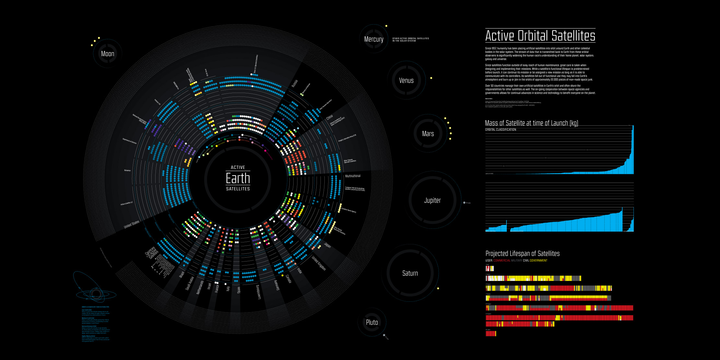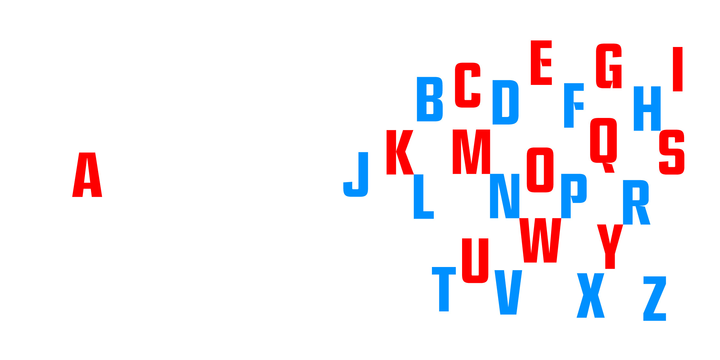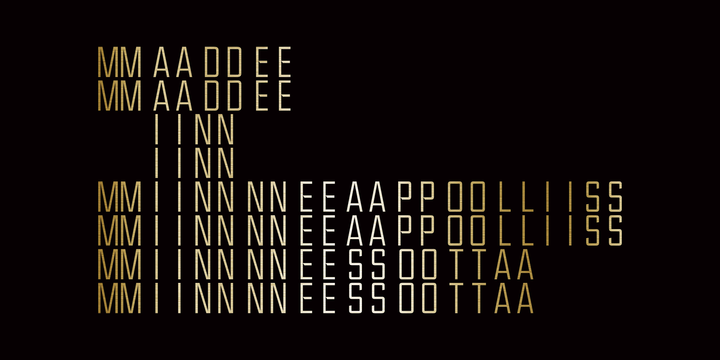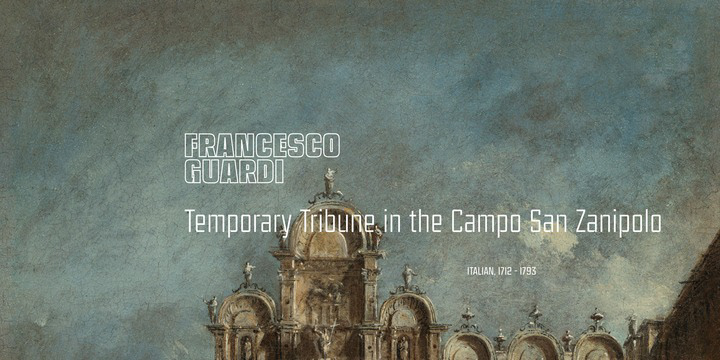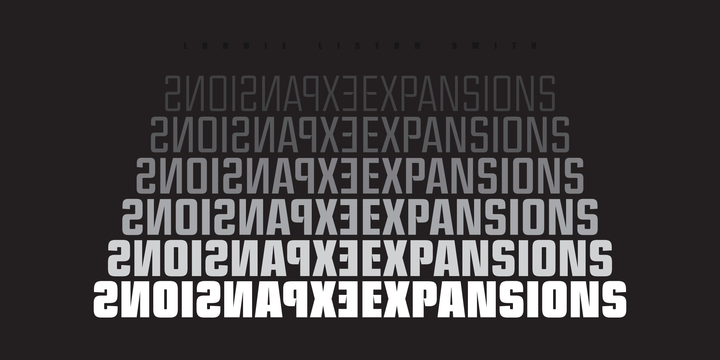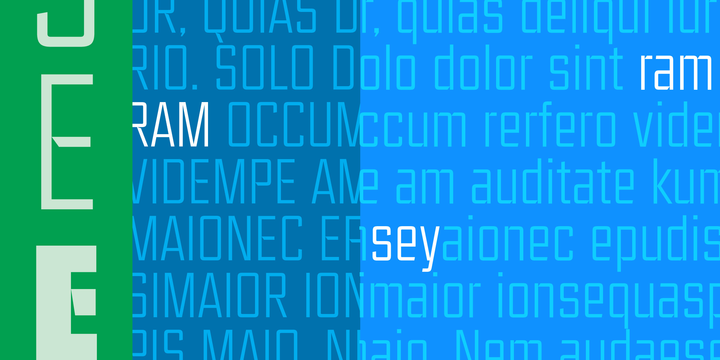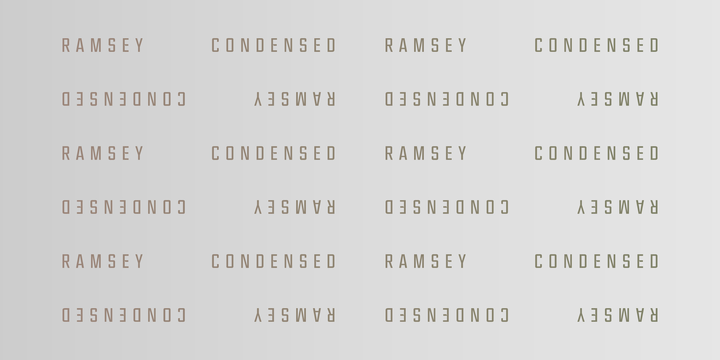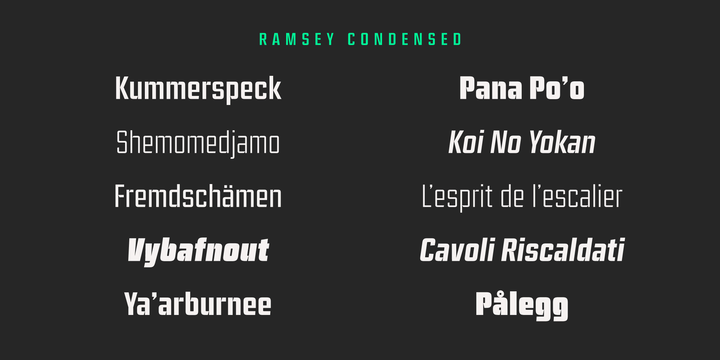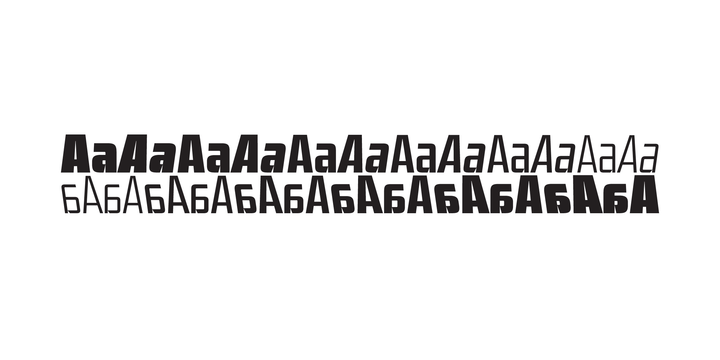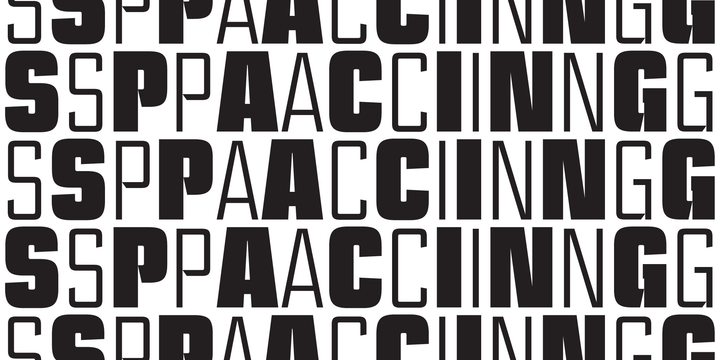
Ramsey Condensed — Typeface
Ramsey Condensed is the a narrowed version of the popular typeface Ramsey designed by Michael Cina. I helped draw, space and implement publication of the typeface. It has since been updated and incorporated into the improved Ramsey typeface.